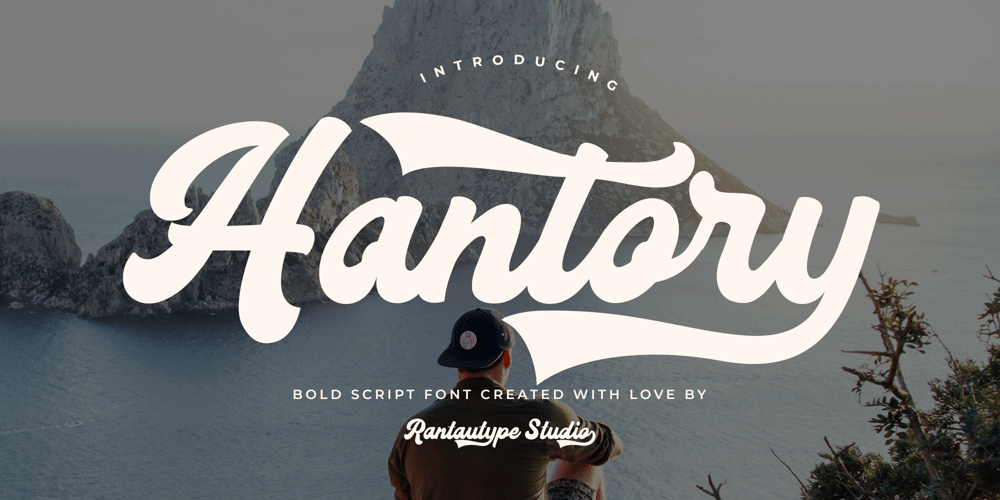
Hantory Font Family was designed by Yudi Pratama Chandra and published by RantauType. Hantory contains 1 styles and family package options. Hantory is bold script font with modern casual style and circle flow. Hantory come with authentic hand-lettering touch with more feature alternate, ligature and swashes, you can mix to make awesome design project.Hantory is a perfect choice for any creative endeavor, lifestyle design such as logos, title, watermark on photography, cover, branding, display and magazine, wedding event, corporate brand, quotes, album cover, business card, business project, company branding and more project with handwritten taste.What you have: Standart Glyphs Numberial and Functional Ligature and alternate Works on PC & Mac Simple installations Accessible in Adobe Illustrator, Adobe Photoshop, Adobe InDesign, even work on Microsoft Word. Fonts include Multilingual Support for: Afrikaans, Albanian, Asu, Basque, Bemba, Bena, Breton, Chiga, Cornish, Dutch, English, Estonian, Filipino, Finnish, Friulian, Galician, Gusii, Indonesian, Irish, Italian, Kabuverdianu, Kalenjin, Kinyarwanda, Luo, Luxembourgish, Luyia, Machame, Makhuwa-Meetto, Makonde, Malagasy, Manx, Morisyen, North, Ndebele, Nyankole, Oromo, Portuguese, Quechua, Romansh, Rombo, Rundi, Rwa, Samburu, Sango, Sangu, Scottish, Gaelic, Sena, Shambala, Shona, Soga, Somali, Spanish, Swahili, Swedish, Swiss, German.Thank you for your purchase!Hope you enjoy with our font!